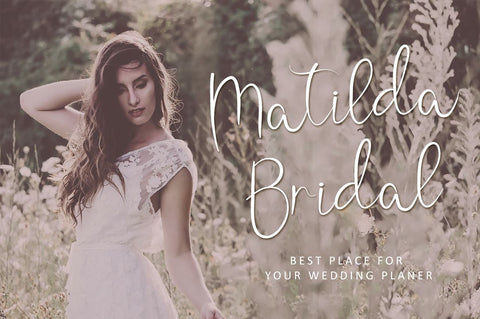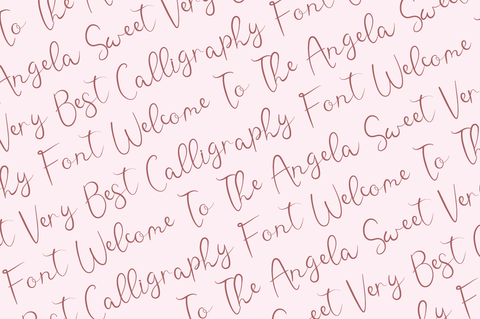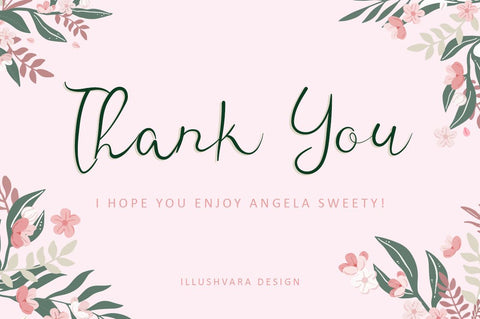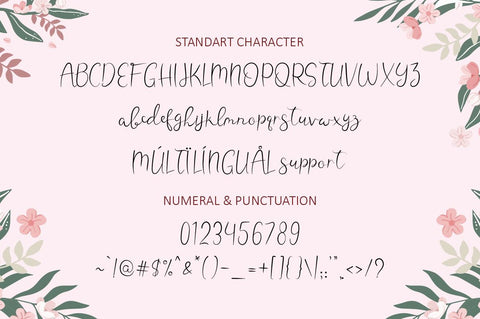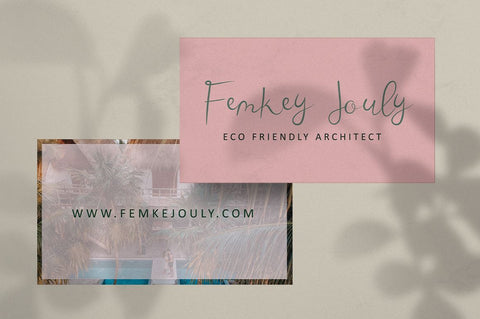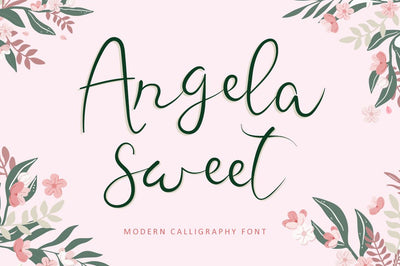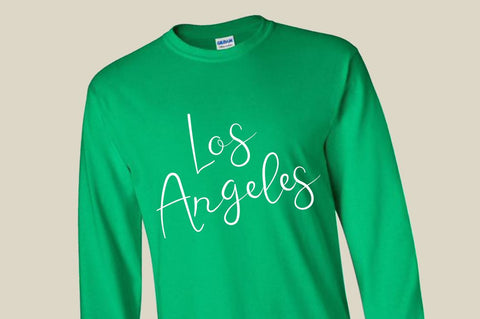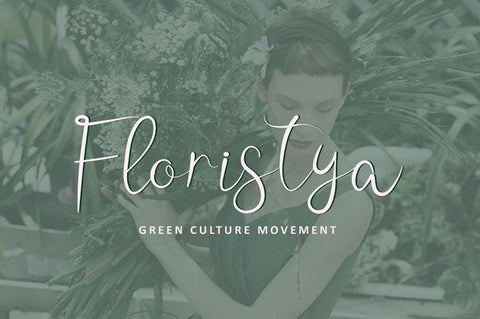
Angela Sweet - Beautiful Calligraphy Font
Happy to share our new font "Angela Sweet" is a beautiful modern font, described by an crafty touch, perfect for your favorite projects.
Fall in love with its incredibly distinct and timeless style and use it to create spectacular designs!
Angela Sweet is perfect for product packaging, branding project, magazine, social media, wedding, or just used to express words above the background